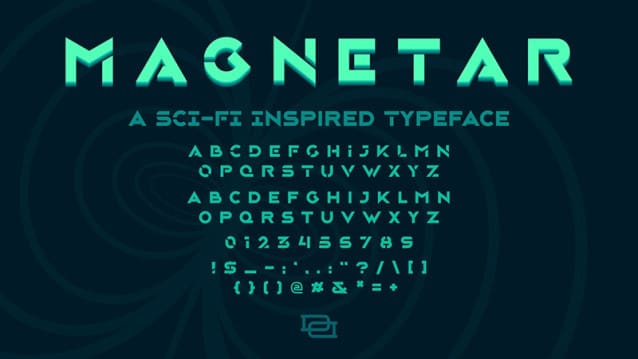
Magnetar Font – A sci-fi-inspired font with alternates for all capital letters. Latin characters only.
| Designer Name: | DysDes |
| Classification: | Display Fonts, Sans Serif Fonts, Techno / Futuristic Fonts |